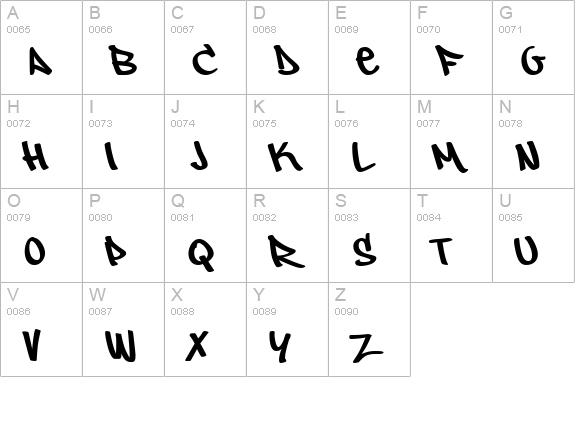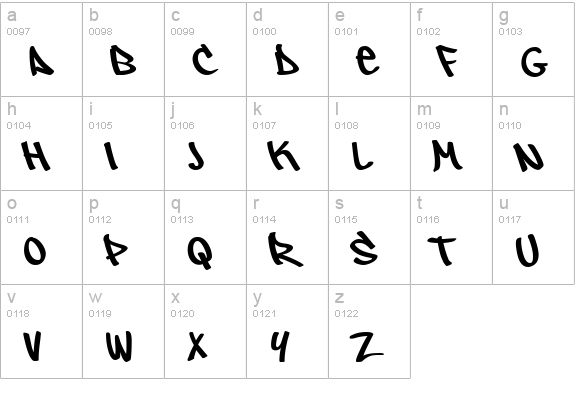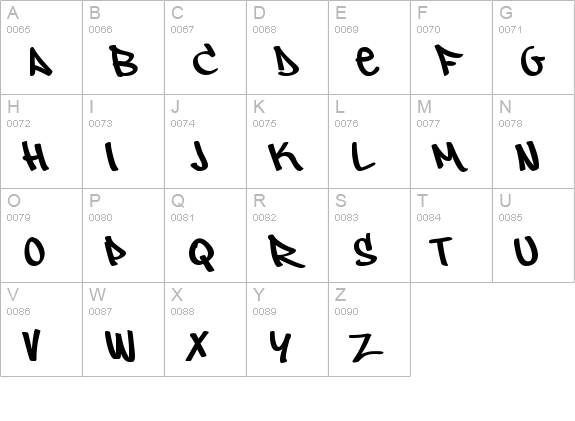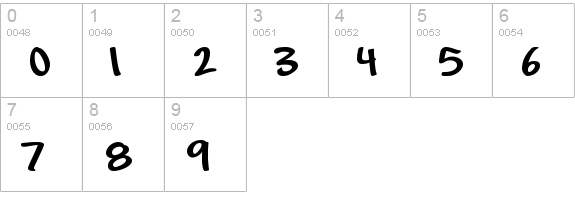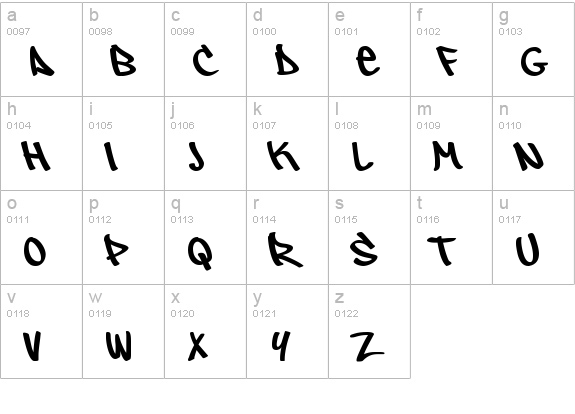
Owned font is a stunning display typeface that exudes a sense of modern elegance and sophistication. With its sleek lines and bold characters, this font is perfect for making a statement in any design project. Whether you're looking to create eye-catching logos, stylish headlines, or striking posters, Owned font is sure to make a lasting impression. What sets Owned font apart is not only its aesthetic appeal but also its accessibility. This premium font is available for free download at FontsMarket.com, making it easy for designers of all levels to incorporate it into their work. With its versatility and timeless design, Owned font is a must-have addition to any designer's toolkit.